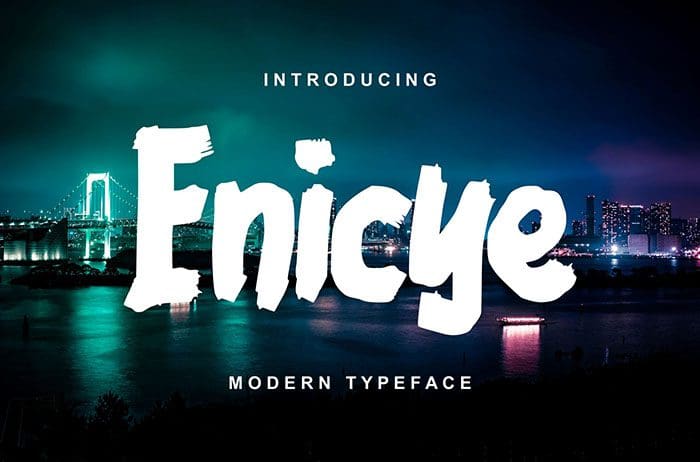
Enicye Decorative Font
Enicye is a modern decorative font. This font inspired by classic typography and brings its own unique style to any design project. Thanks to Vunira Studio for sharing this font! Take a look at this portfolio for more of his stunning fonts.